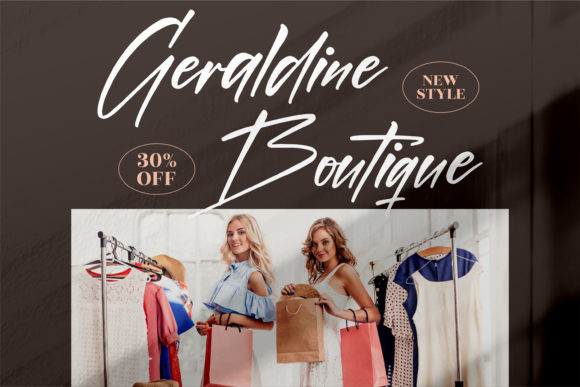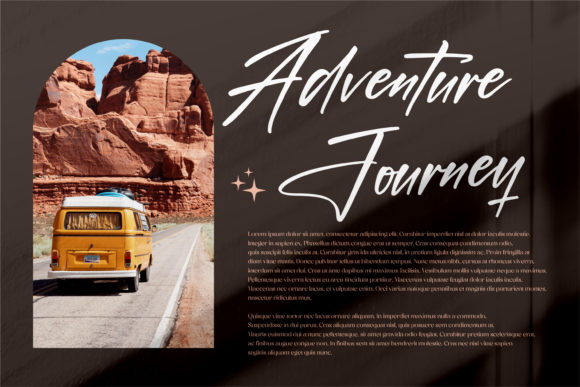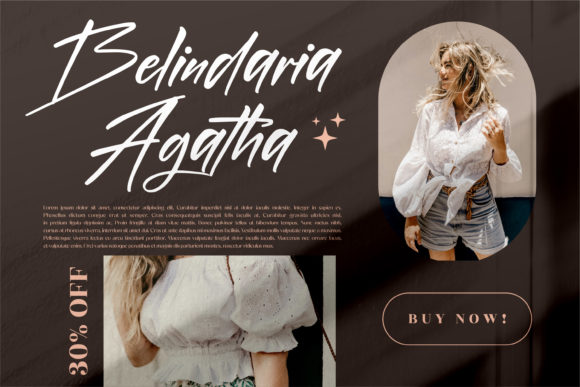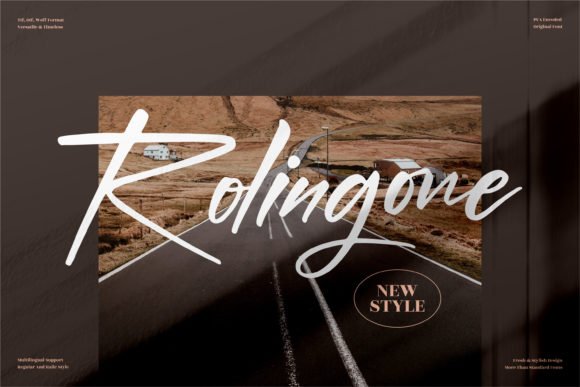
Introduction to Rolingone Font
Rolingone is a lovely and timeless handwritten font.
Key Features of Rolingone Font
Why Choose Rolingone Font?
Rolingone Font offers exceptional quality and versatility, making it a valuable addition to your design toolkit. Whether you’re creating for personal projects or commercial use, Rolingone Font delivers professional results.